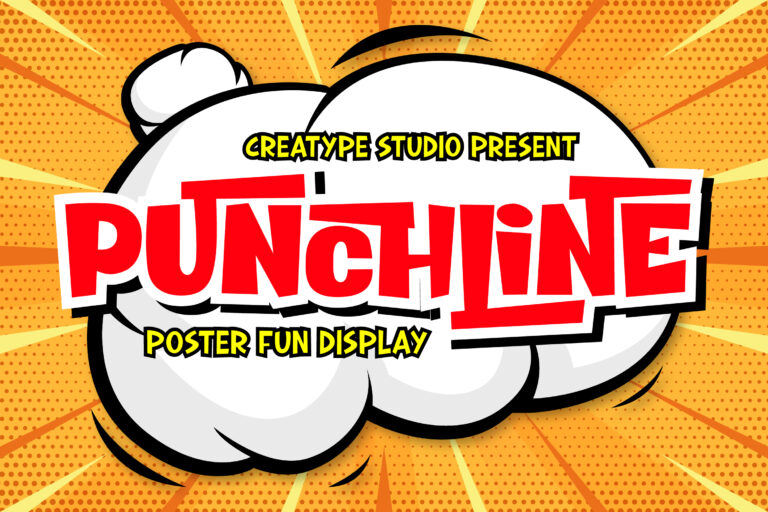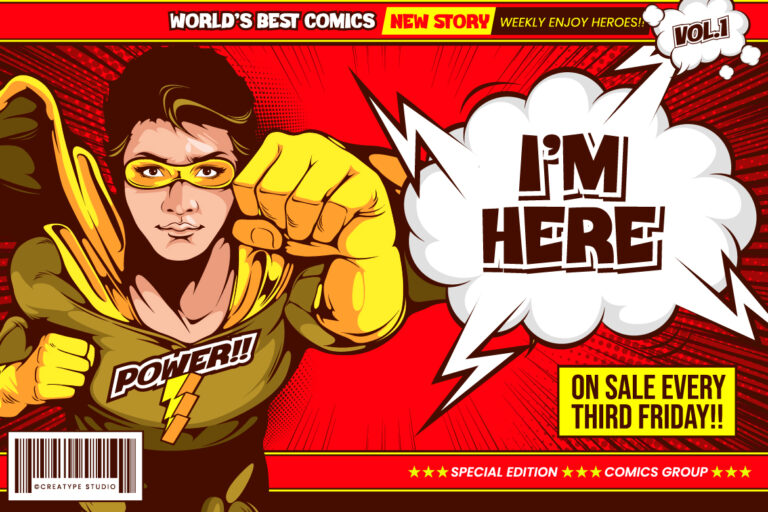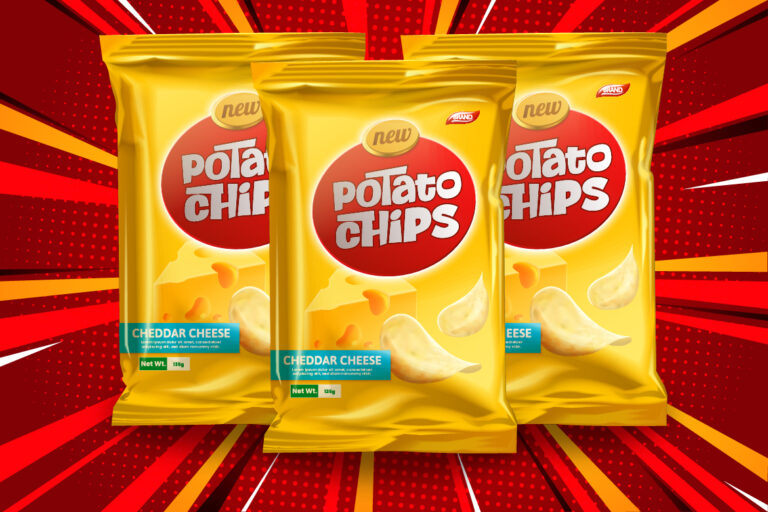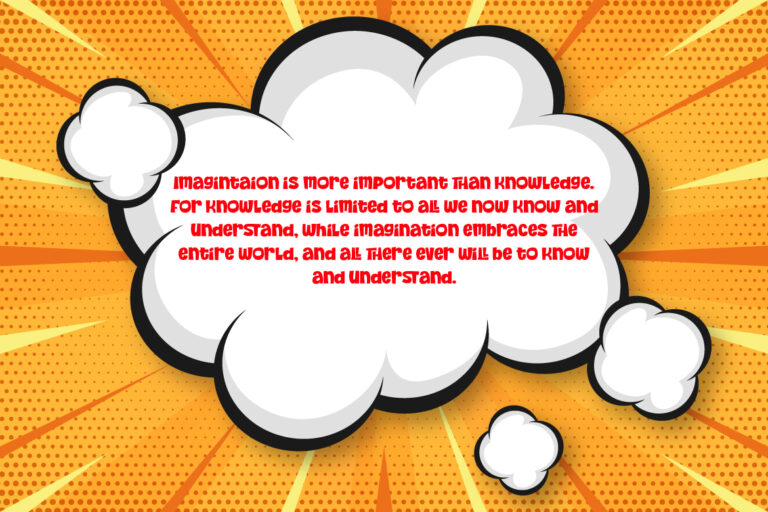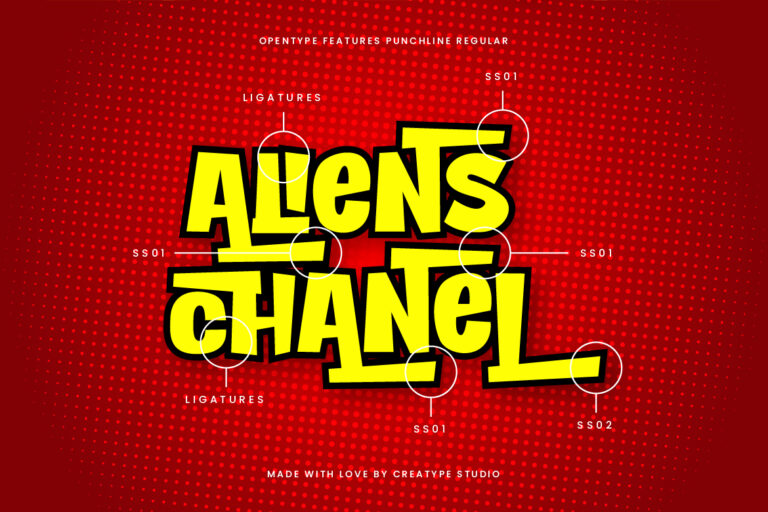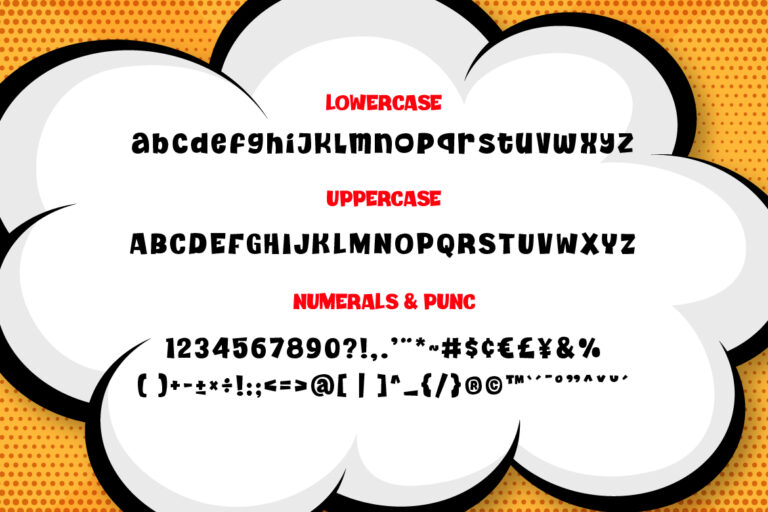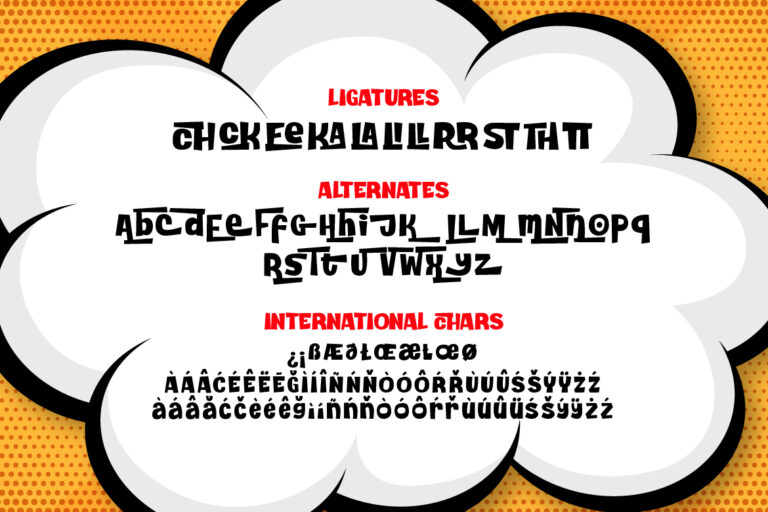
Punchline is a fun poster display typeface made with love, resulting in a font that looks unique and fun. This font is very suitable for products that prioritize a sense of fun and cute. This font makes all your big products look different and awesome.
Punchline is perfect for branding projects, logo, wedding designs, social media posts, advertisements, product packaging, product designs, label, photography, watermark, invitation, stationery and any projects that need handwriting taste.
- Fonts include multilingual support for; Afrikaans, Albanian, Czech, Danish, Dutch, English, Estonian, Finnish, French, German, Hungarian, Italian, Latvian, Lithuanian, Norwegian, Polish, Portuguese, Slovak, Slovenian, Spanish, Swedish.
Punchline Poster Display